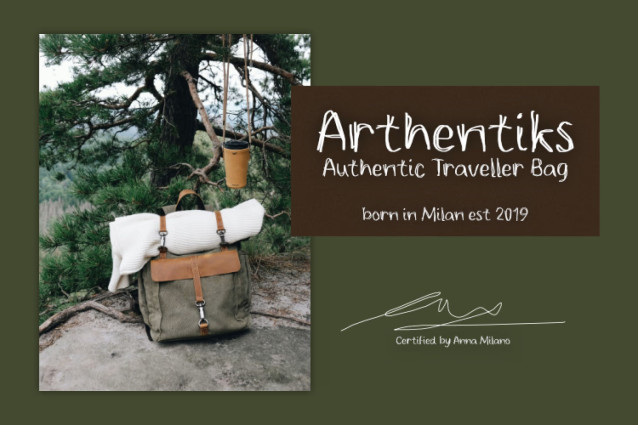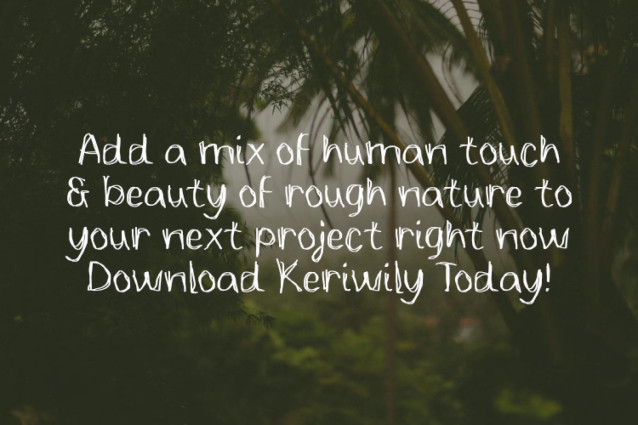
ZRTW Keriwily Font
ZRTW Keriwily Font is a playful handwritten font that brings a natural, organic vibe to your designs. Its irregular strokes and free-flowing style are perfect for nature branding, lifestyle blogs, product packaging, and children’s content. Whether you’re creating for Instagram, a cozy book cover, or eco-friendly labels, Keriwily gives your project a heartfelt, human voice that stands out in a polished digital world.